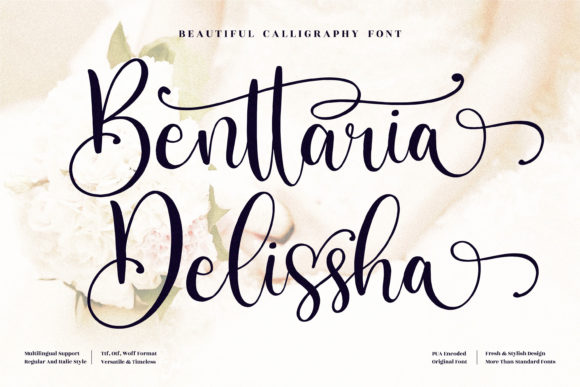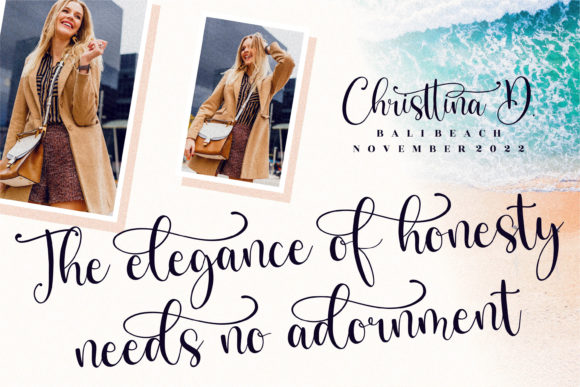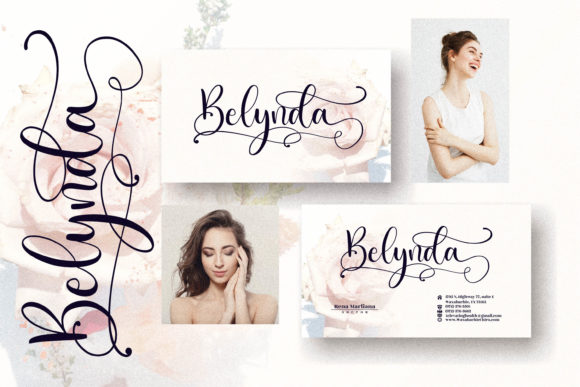
Benttaria Delissha Font
Benttaria Delissha is a romantic script font with marvellous characters and a really nice calligraphic style! It is perfect for wedding projects, birthday cards, elegant company designs, exquisite marketing campaigns, and more!